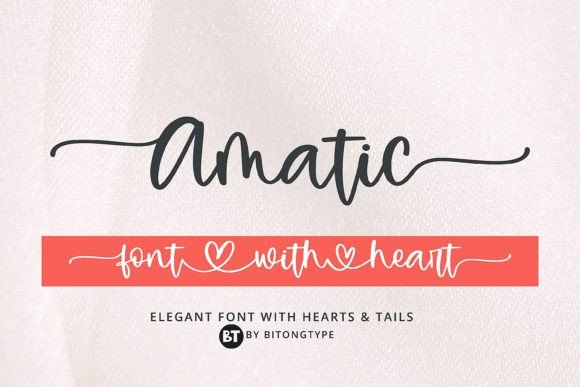
The Amatic Font: A Designer’s Dream Come True
I’ll never forget the time I was working on a wedding invitation project for a client, and I just couldn’t seem to find the perfect font. I had scoured the internet, tried out countless fonts, but nothing seemed quite right. That was until I stumbled upon the Amatic font. It was love at first sight! ✨ The gorgeous handwritten style and incredibly versatile design won me over, and I knew I had found the perfect fit for my project.
An Honest Review of Amatic Font
• ✨ Beautifully crafted design: The Amatic font is a stunning example of handwritten typography. Its elegant and flowing lines make it perfect for a wide range of design projects.
• 💕 Versatile style: Whether you’re creating wedding invitations, social media posts, or stationery art, the Amatic font is up to the task. Its versatility is unmatched!
While the Amatic font is an amazing design tool, there are a few small quirks to be aware of. 🤔 For example, some users have reported issues with kerning, which can be a bit tricky to adjust. ⚠️ Additionally, the font may not be suitable for body text, as it’s best used for headlines and titles.
A Practical Guide to Using Amatic Font
The Story Behind Amatic Font
The Amatic font was designed by a talented typographer who wanted to create a beautiful handwritten font that would inspire creativity. With its elegant lines and flowing curves, the Amatic font is perfect for designers, crafters, and creative hobbyists alike.
Q: What is the Amatic font?
A: The Amatic font is a gorgeous handwritten font that’s perfect for a wide range of design projects.